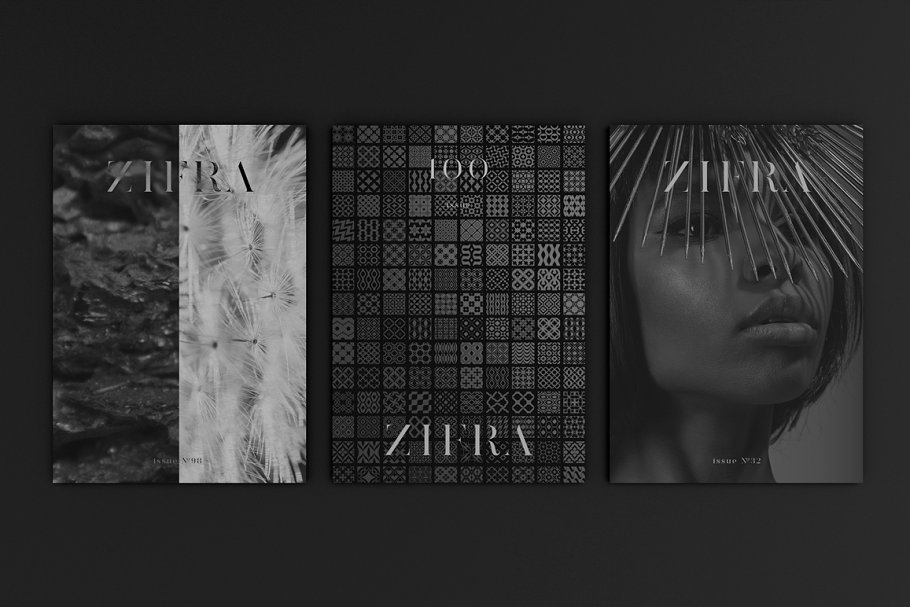
Introducing Ravensara Stencil, the elegant and high-contrast serif font family with a wide range of weights that will make your design stand out from the crowd. With its 9 different weights, from Thin to Extrablack, Ravensara Stencil provides the highest contrast that will give your text a powerful and impactful presence.
Created by Peter Bushuev, Ravensara Stencil is inspired by old-style classic typefaces such as Didone and Baskerville, but with a modern twist. The font family got rid of unnecessary details and added stencil elements to make it more contemporary.
Ravensara Stencil is perfect for branding, packaging, headlines, posters, presentations, and short texts. It features 390 glyphs, 2889 kerning pairs, and .otf and .woff files. The font family supports Latin Extended-A (Western and Central European languages), making it accessible for a wide range of users.
In addition to its impressive features, Ravensara Stencil also offers versatility, allowing you to create a variety of designs that suit your needs. Its captivating and emotional design is perfect for expressing bold statements, empowering messages, and showcasing your creativity.